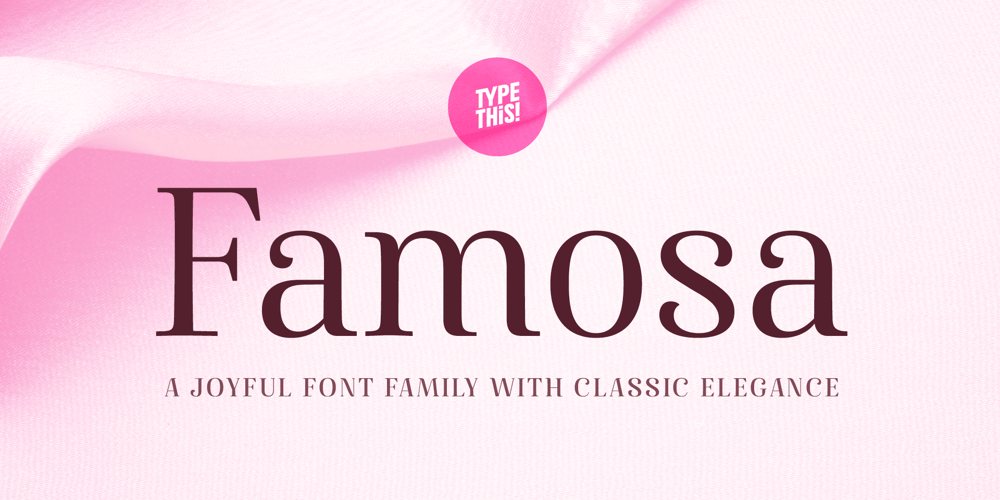
Famosa
Famosa font
Famosa Font Family was designed by Anita Jürgeleit and published by TypeThis!Studio. Famosa contains 7 styles and family package options. Famosa was designed by Anita Jürgeleit. Its lively and handmade character makes for a charming image for an unmistakably elegant typography. Seven styles, old-style figures, and special ligatures serve as titles and headlines about the finer things in life.